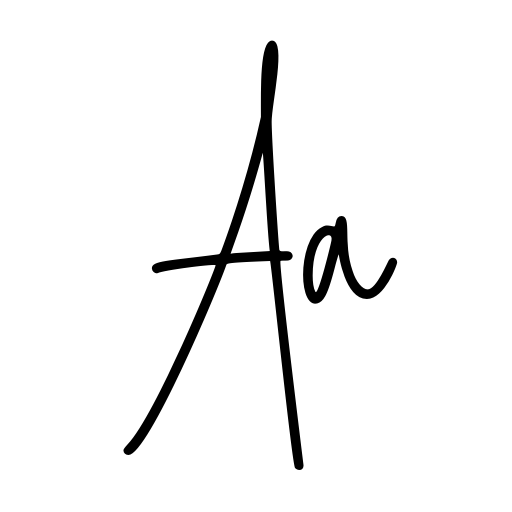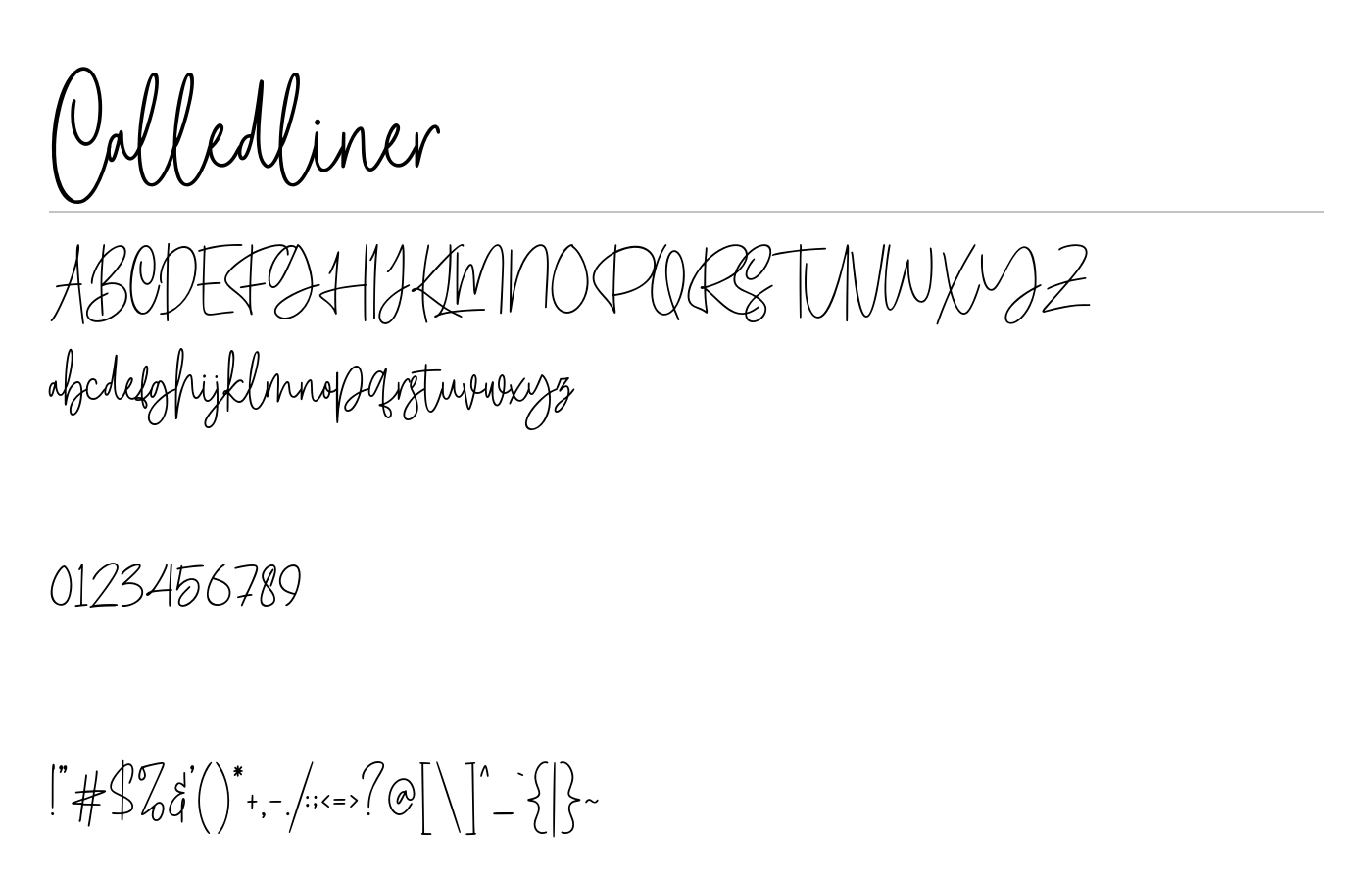
Calledliner is a delicate, handwritten script font that captures a casual yet elegant vibe with its thin, slightly uneven strokes and tall, narrow letterforms. Its playful, airy character makes it perfect for creative projects like invitations, branding, and personal notes where a friendly, artistic touch is desired. This font shines in designs that benefit from a personal, human feel without sacrificing readability.
Calledliner Font
About Calledliner Font